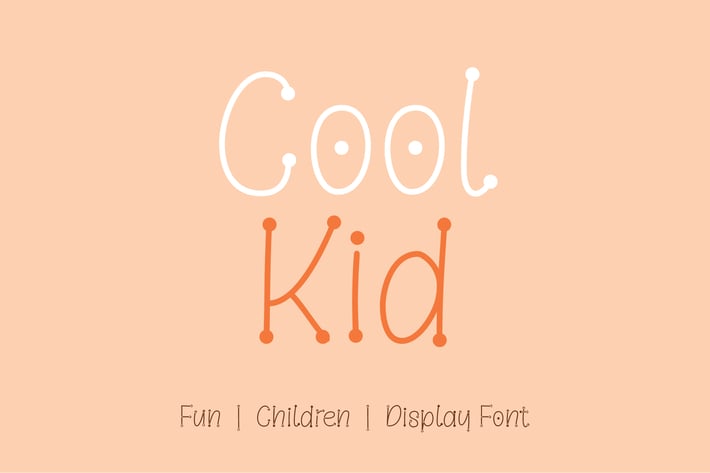
Cool Kid - Fun | Children | Display Font
Cool Kid is a font created with fun style and to fit to use as children project designs. It features a unique style and will add friendly feel to your upcoming projects. Get inspired by its unique feel and use it to create designs, posters, brand logo, product packaging and many more!